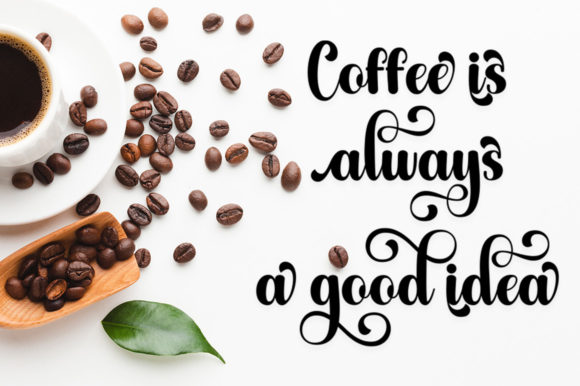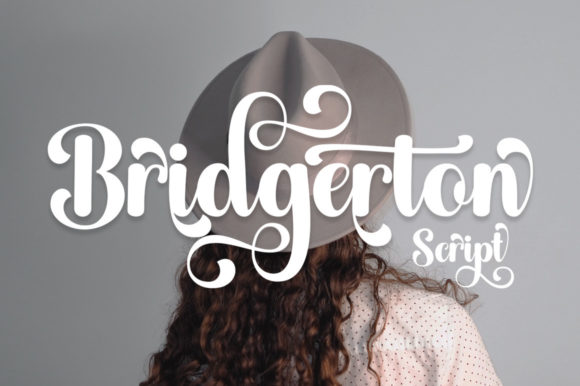
Bridgerton Font
db-ku.com - Script & Handwritten -- Bridgerton is a sophisticated handwritten font that’s great for delivering any message with confidence, authenticity and charm. It will elevate a wide range of crafting ideas, from cards, to branding, labels and much more.